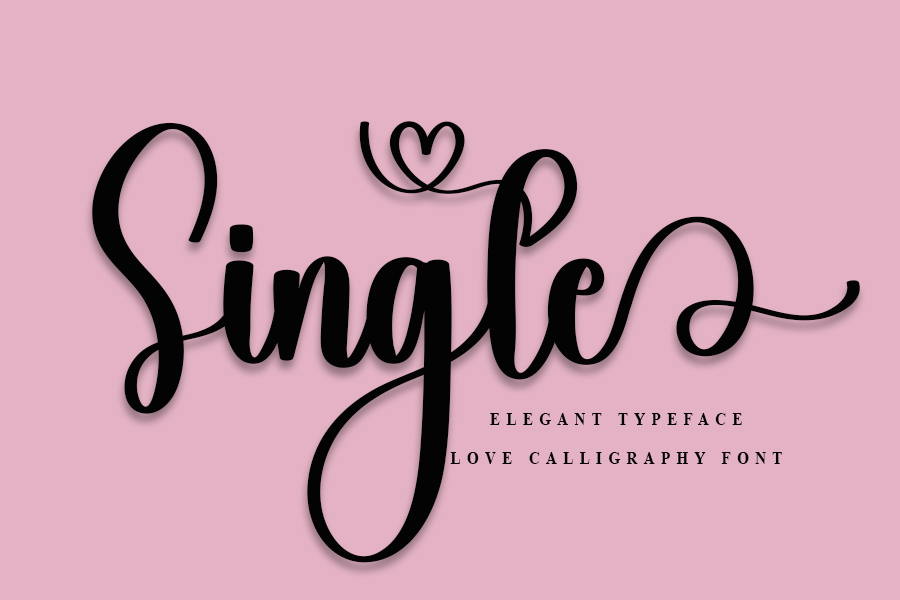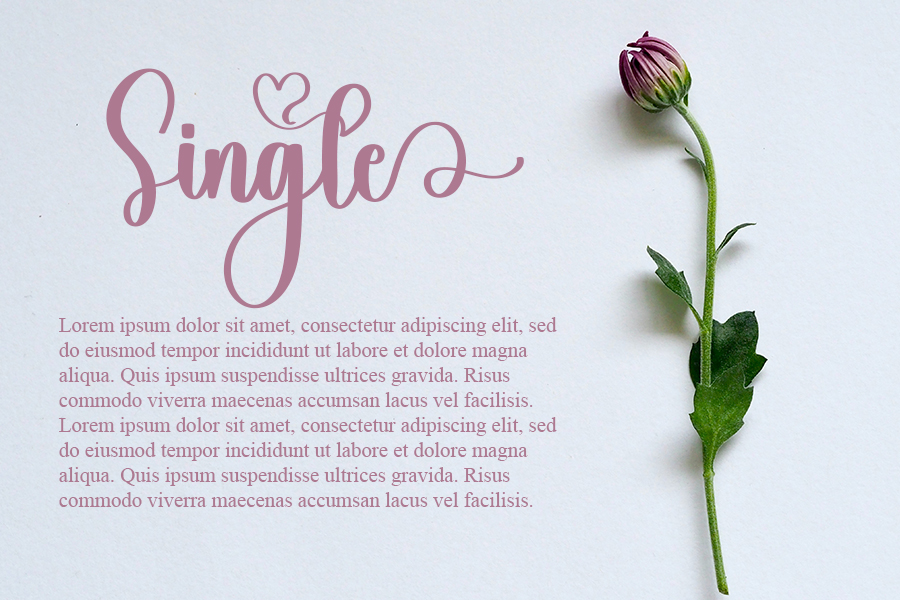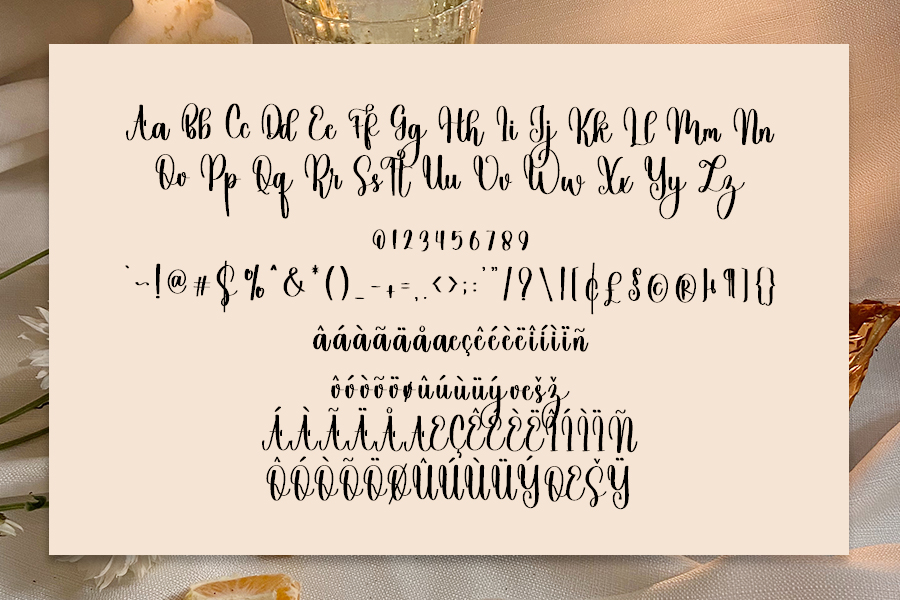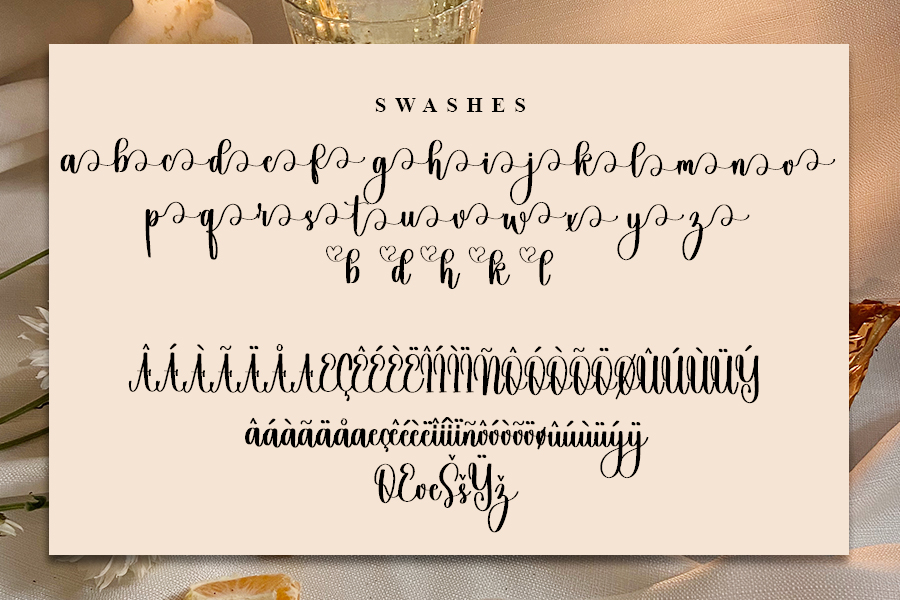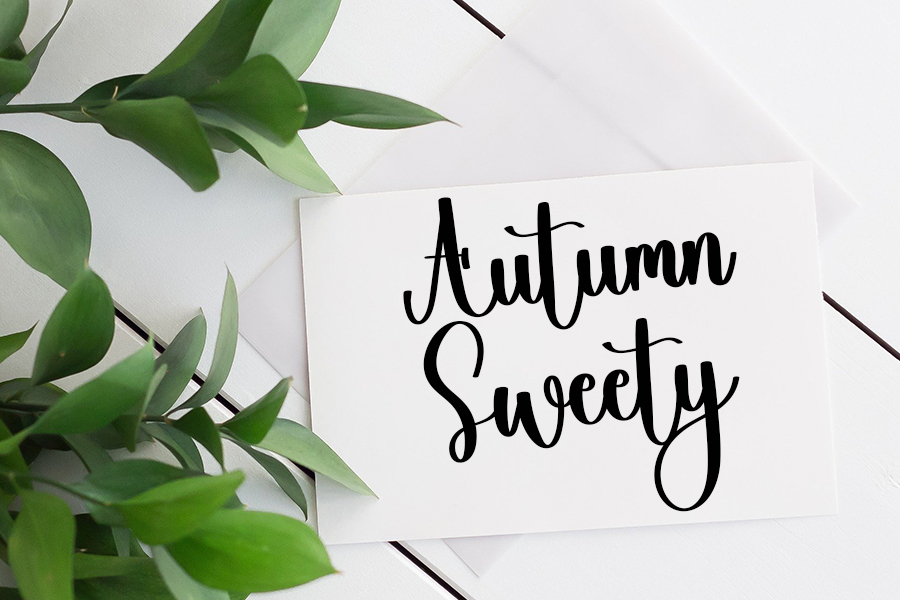
Single Typeface
Single Script Typeface
This is a relaxed and beautiful paint brush handwritten font. It can be used for various purposes such as logos, wedding invitations, headings, t-shirts, letterhead, signage, labels, news, posters, badges and so much more.